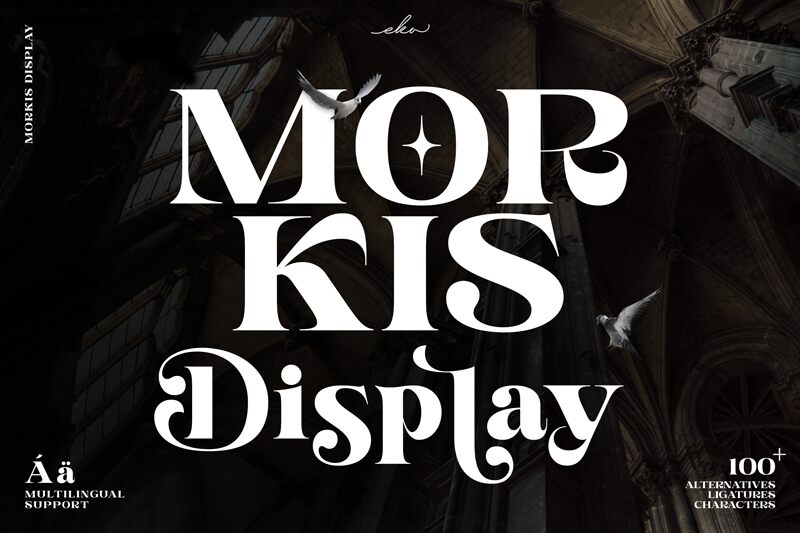
Morkis font is a free serif font designed by Eka Hermawan. With ornate details and a distinctive vintage-inspired style, it brings a dramatic and sophisticated edge to any design project. Elegance and artistry are hallmarks of this font, as reflected in the expressive letterforms that add a touch of dynamic flair.
Suitable uses for Morkis include movie posters, book titles, T-shirts, merchandise, event posters, album covers, logos, vintage stores, barbershops, apparel designs, or any creative endeavor. All lettering projects where letters play a vital role can benefit from this font.